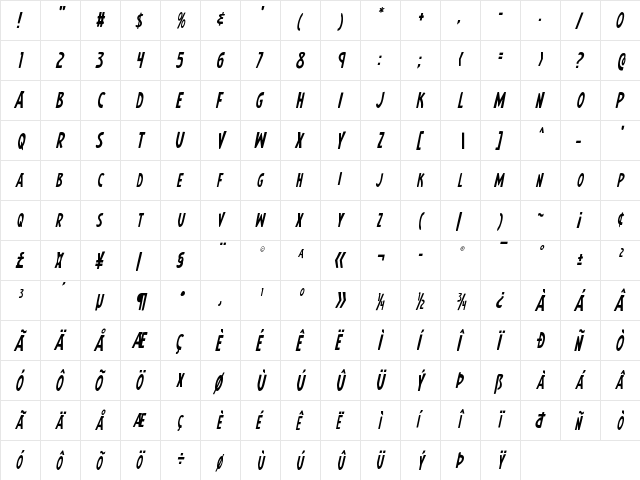
Earth's Mightiest Condensed Italic Font Preview
Design Context for Earth's Mightiest Condensed Italic Typeface
Earth's Mightiest Condensed Italic is a composed and adaptable typeface that performs quietly and consistently across a wide range of design contexts. Its italic angle brings a sense of urgency and motion to the letterforms. Its narrow stance lets it pack a punch even in space-constrained designs.